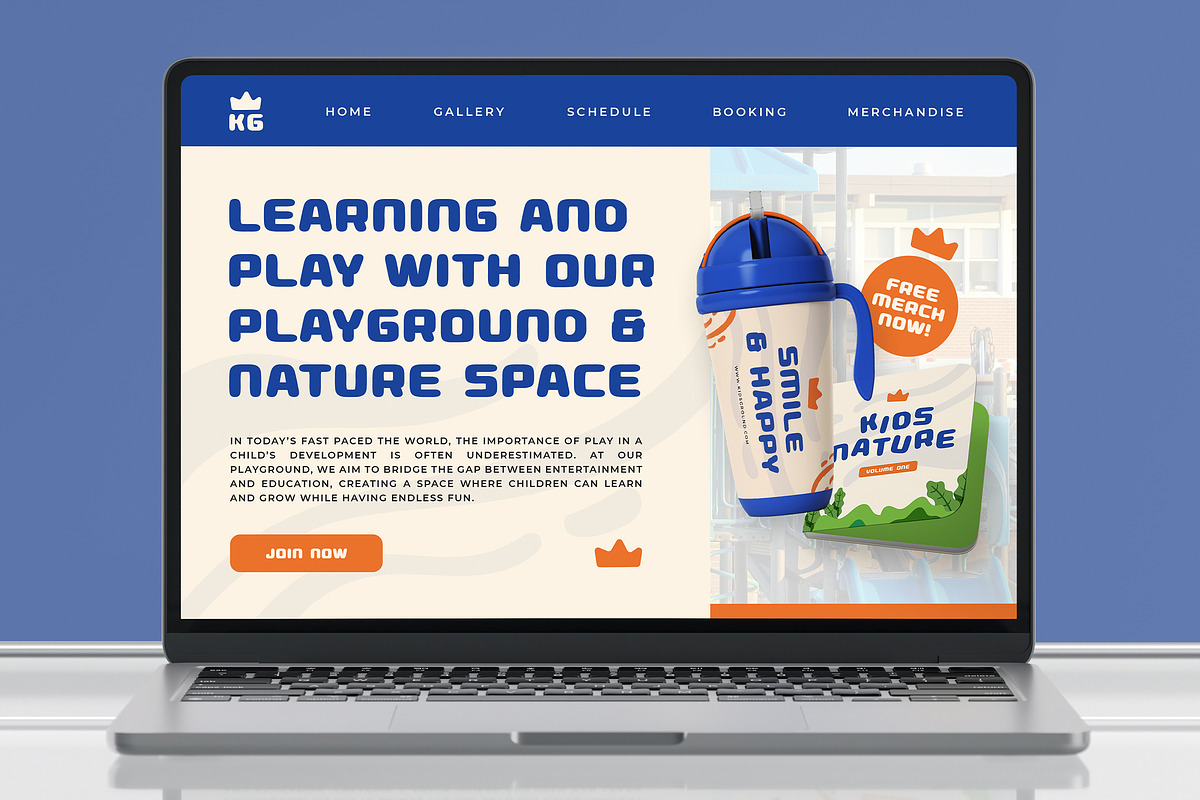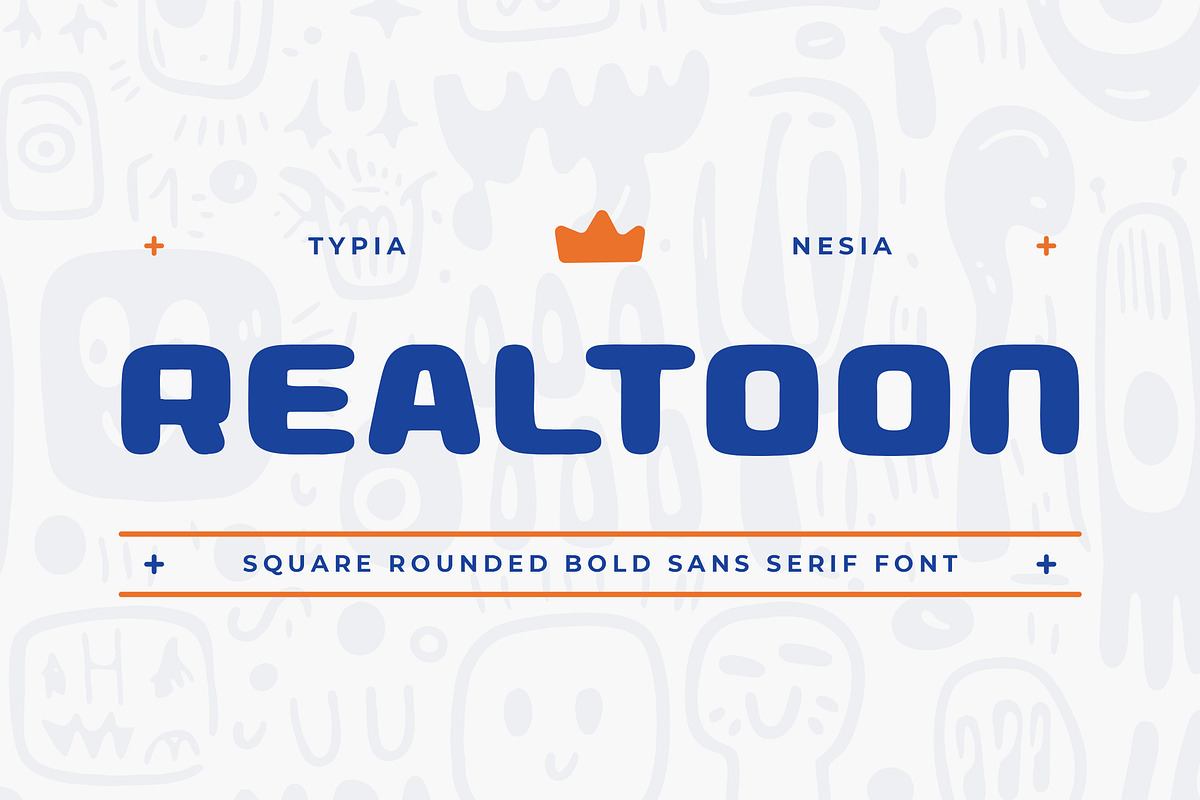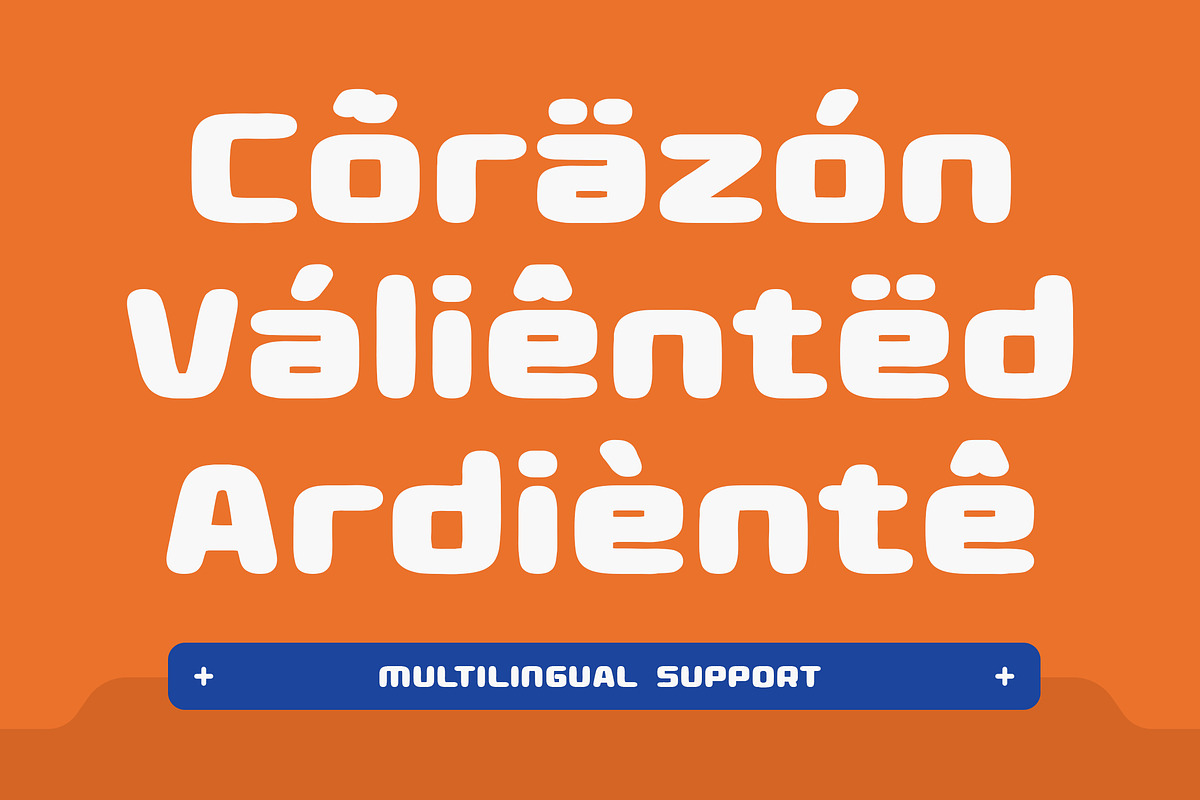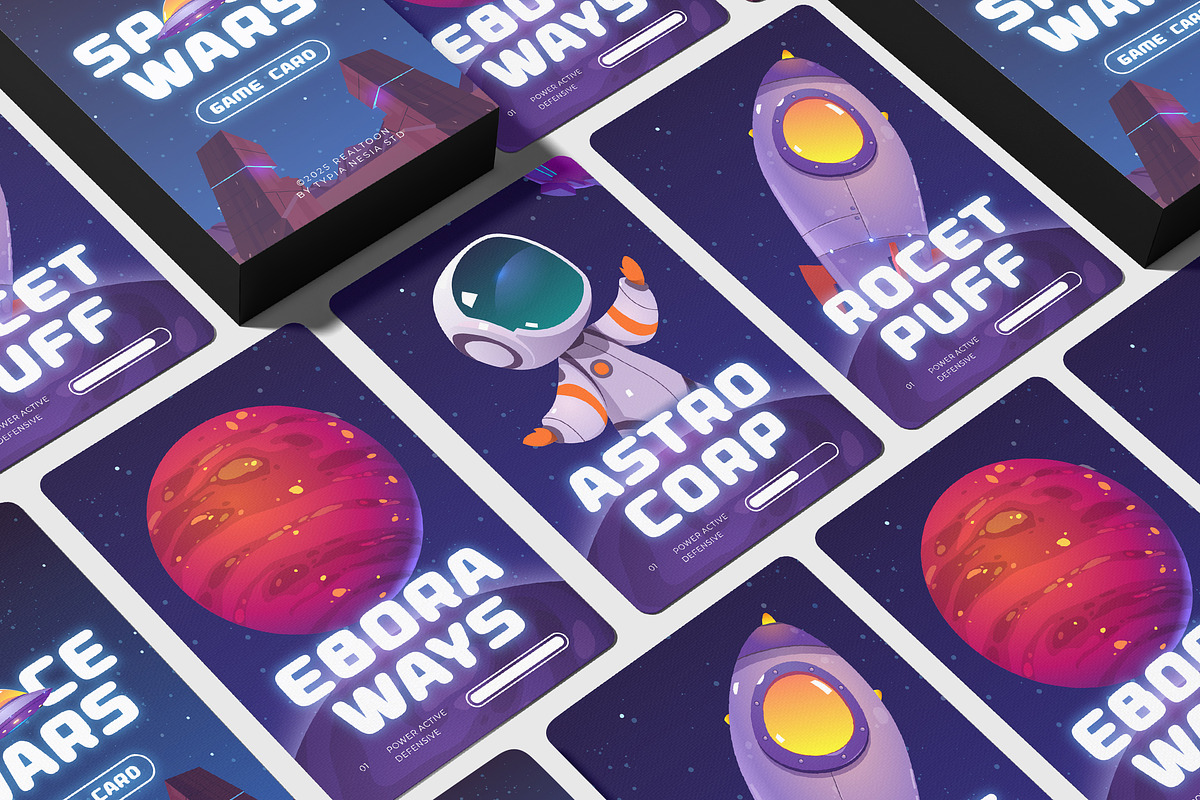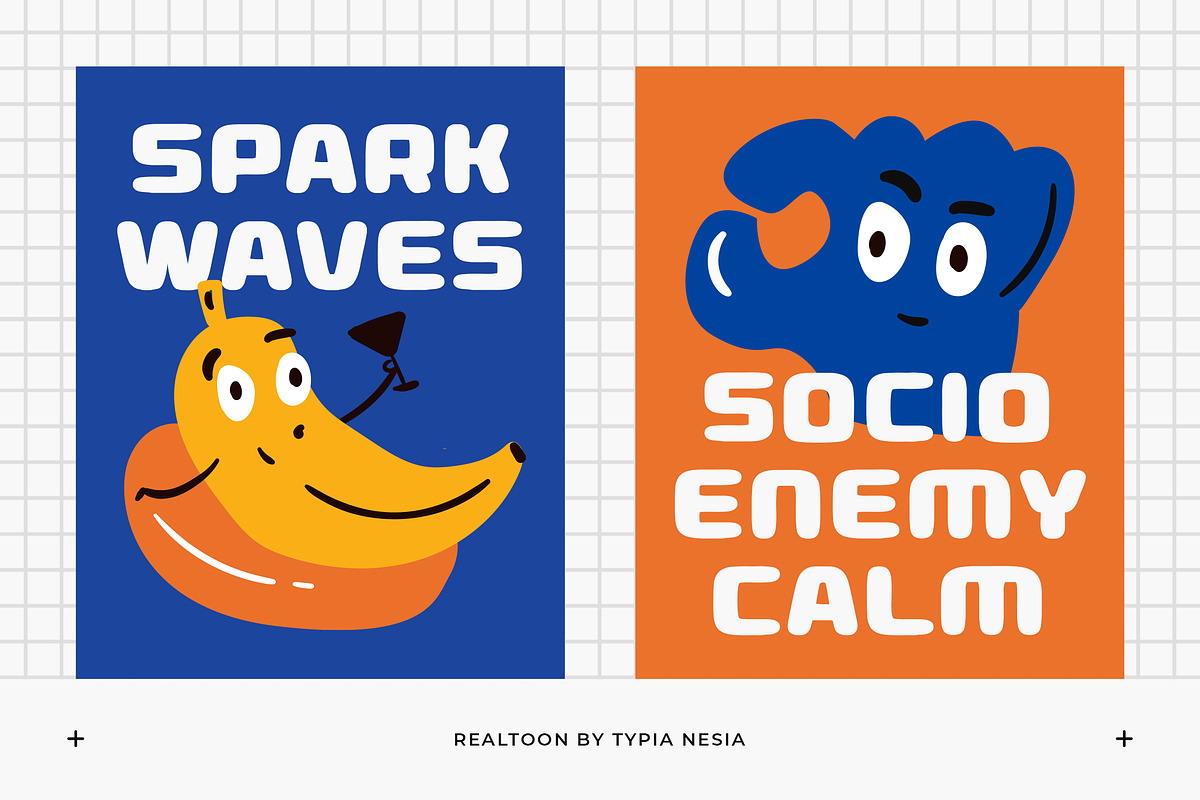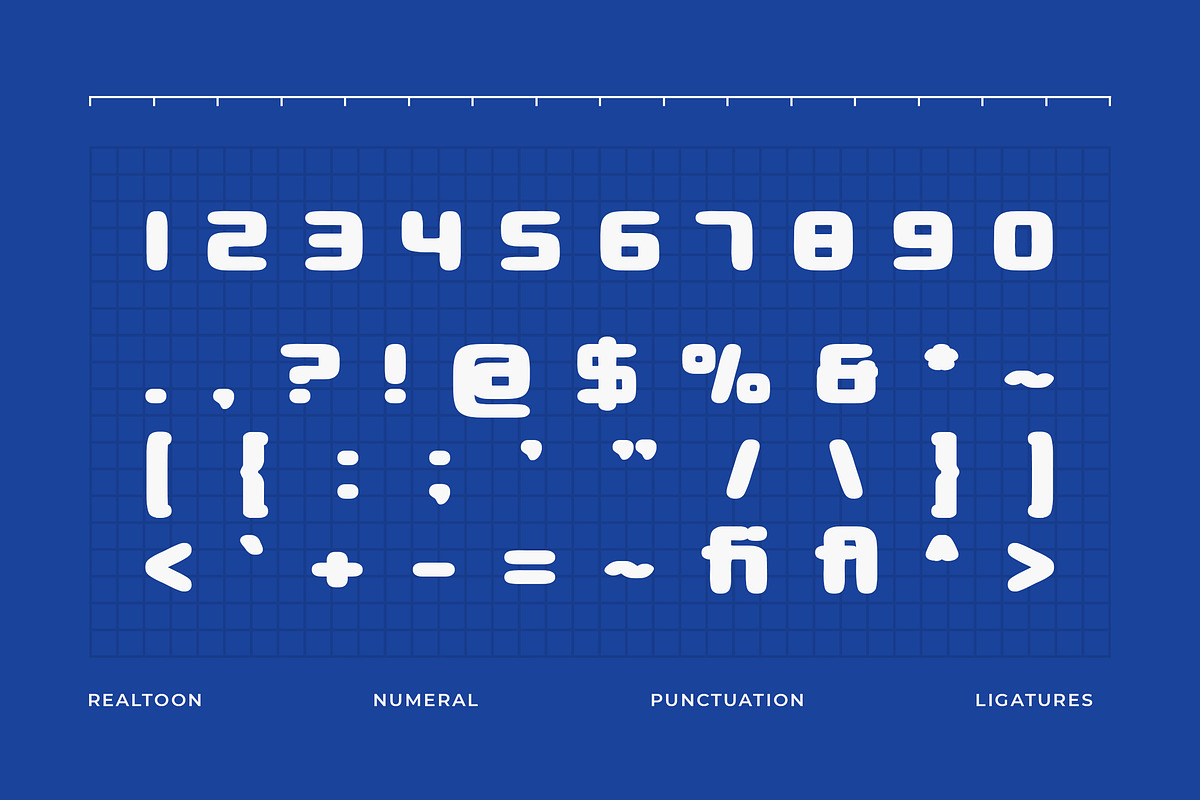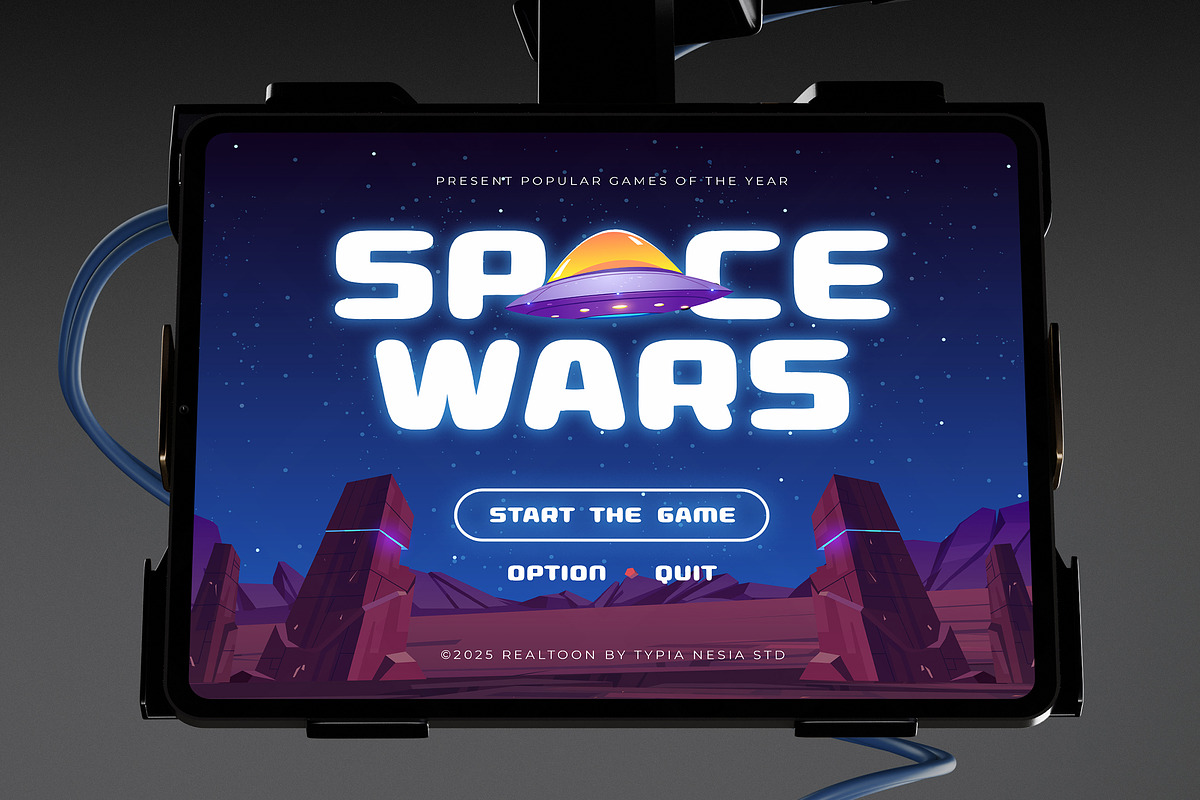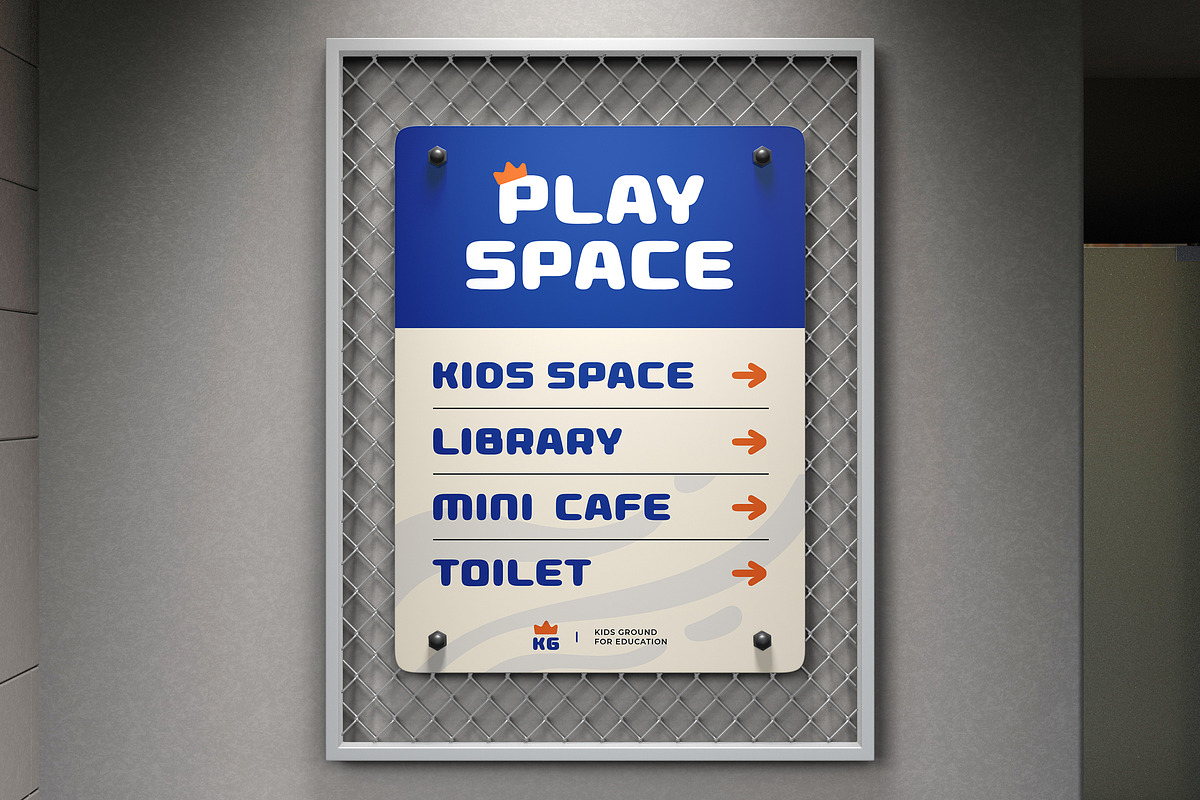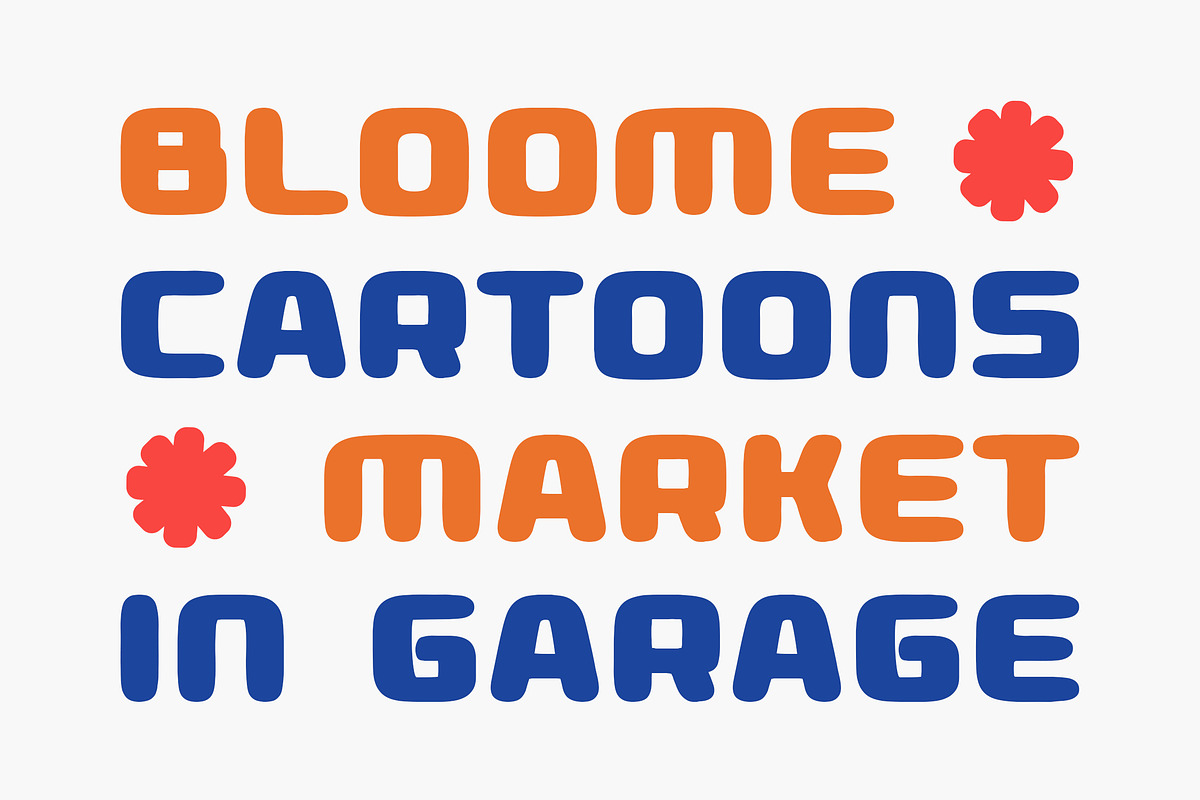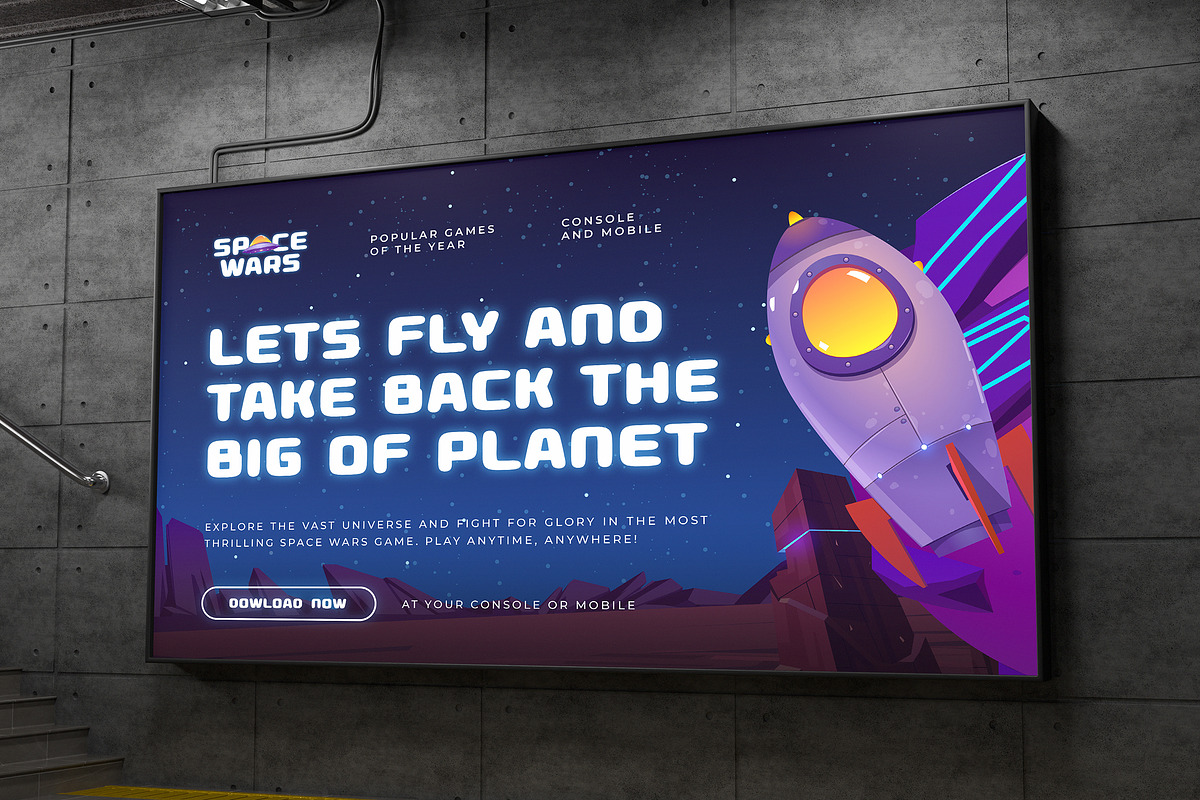
Realtoon - Square Bold Sans Serif
Realtoon - Square Bold Sans Serif Font - Modern Fun & Playful Cartoon Game Display Font
Realtoon is a Square Bold Sans Serif Font with a playful twist! Combining bold geometric shapes with a modern, fun, and cartoon-inspired vibe, Realtoon brings energy and vibrancy to your designs. It's the perfect font to create a dynamic and engaging visual experience, such as cartoon titles, game interfaces, playful branding, children's books, posters, packaging, social media content, logo design, advertising campaign, and more. Comes with a complete set of uppercase and lowercase letters, punctuation, numerals, and a collection of ligatures and alternates to provide creative flexibility. With multilingual support, it caters to a global audience, making it ideal for international projects. Designed for creatives who want to add a touch of fun, playfulness, and modern style, Realtoon is your go-to font for making designs that are as lively and bold as your imagination.